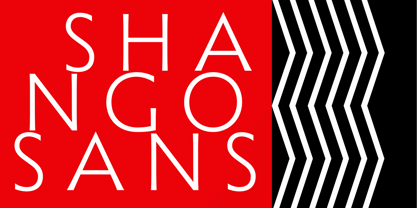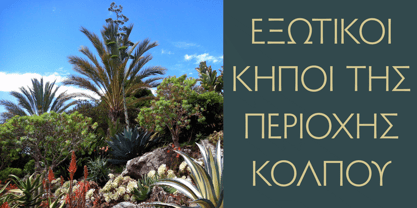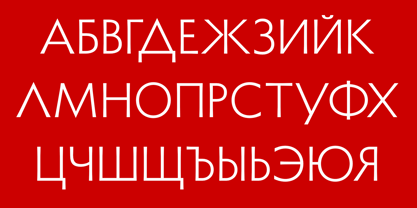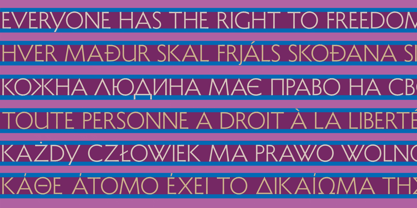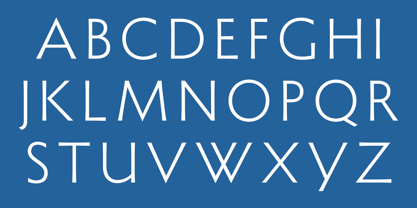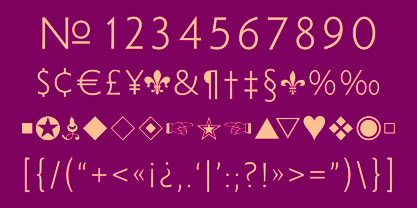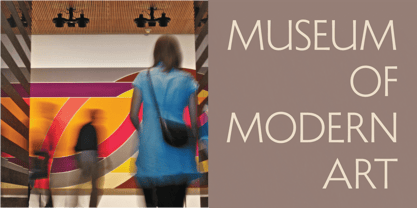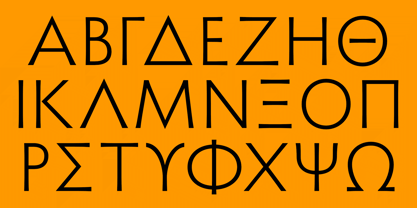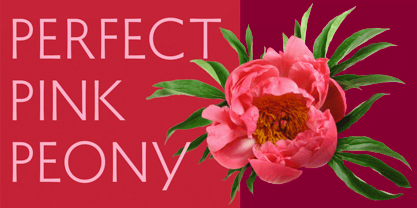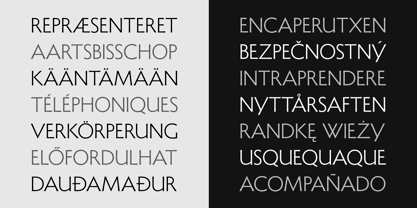
Shàngó Sans™
La familia tipográfica Shàngó Sans fue diseñada por Jason Castle y publicada por CastleType. Shàngó Sans contiene 1 estilos.
Taking the concept of a monoline version of Shàngó — as exemplified in Shàngó Gothic — to its extreme, resulted in the latest addition to the popular Shàngó family of typefaces: Shango Sans. This is a minimalist face, still maintaining the elegant classic letterforms of Professor F.H. Ernst Schneidler's original design, but without obvious contrast in the stroke widths, and of course, without serifs. An extensive set of ligatures and alternate letterforms, along with powerful OpenType features, give Shàngó Sans a great deal of versatility. This elegant, modern typeface supports dozens of languages that use the Latin alphabet as well as modern (monotonic) Greek and most languages that use the Cyrillic alphabet. Shàngó Sans is a member of the extended Shàngó family (Classic, Chiseled, Sans, Gothic).